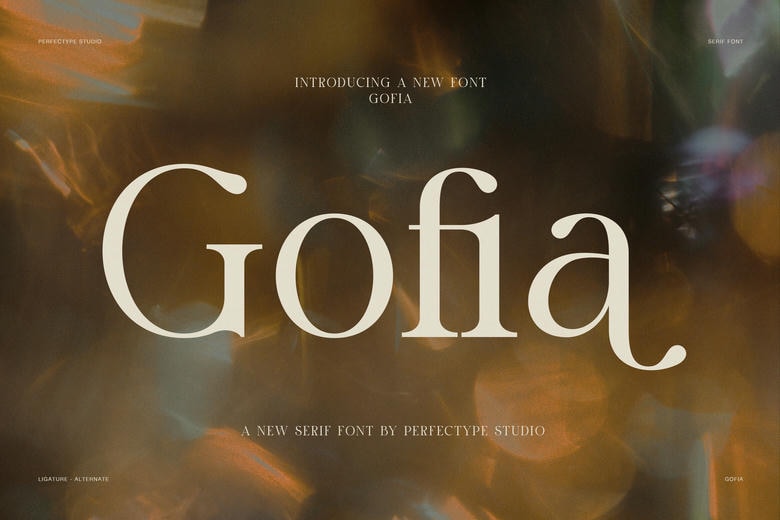
Gofia Font
Gofia is an elegant serif font that blends classic style with a modern touch. It is designed for designers, creative studios, and premium brands looking for graceful letterforms, balanced proportions, and unique ligatures to elevate their projects.
Gofia Elegant Ligature Serif Font